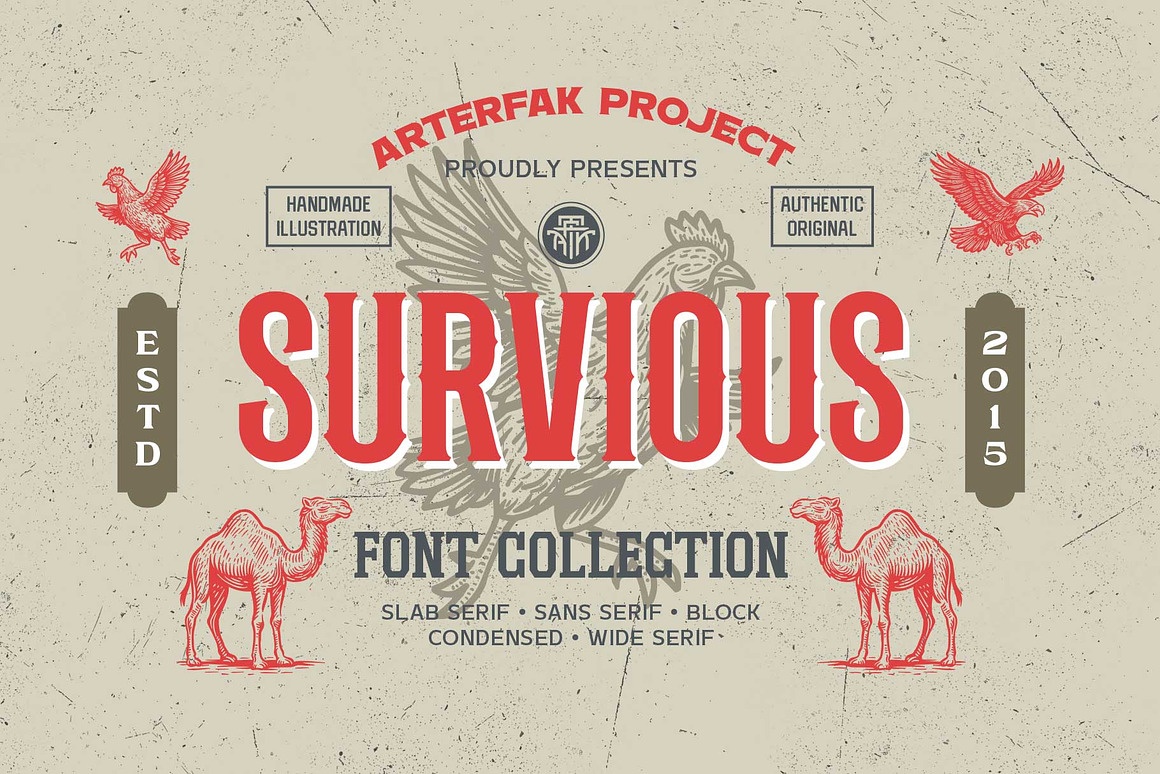
Survious Font
About Survious
Introducing Survious – Vintage Font Set. Inspired by vintage labels and old-school illustrations, this type family blends classic industrial style with strong versatility. It includes Sans Serif, Slab Serif, Wide Serif, Condensed Serif, Decorative, and Block styles that work seamlessly together.